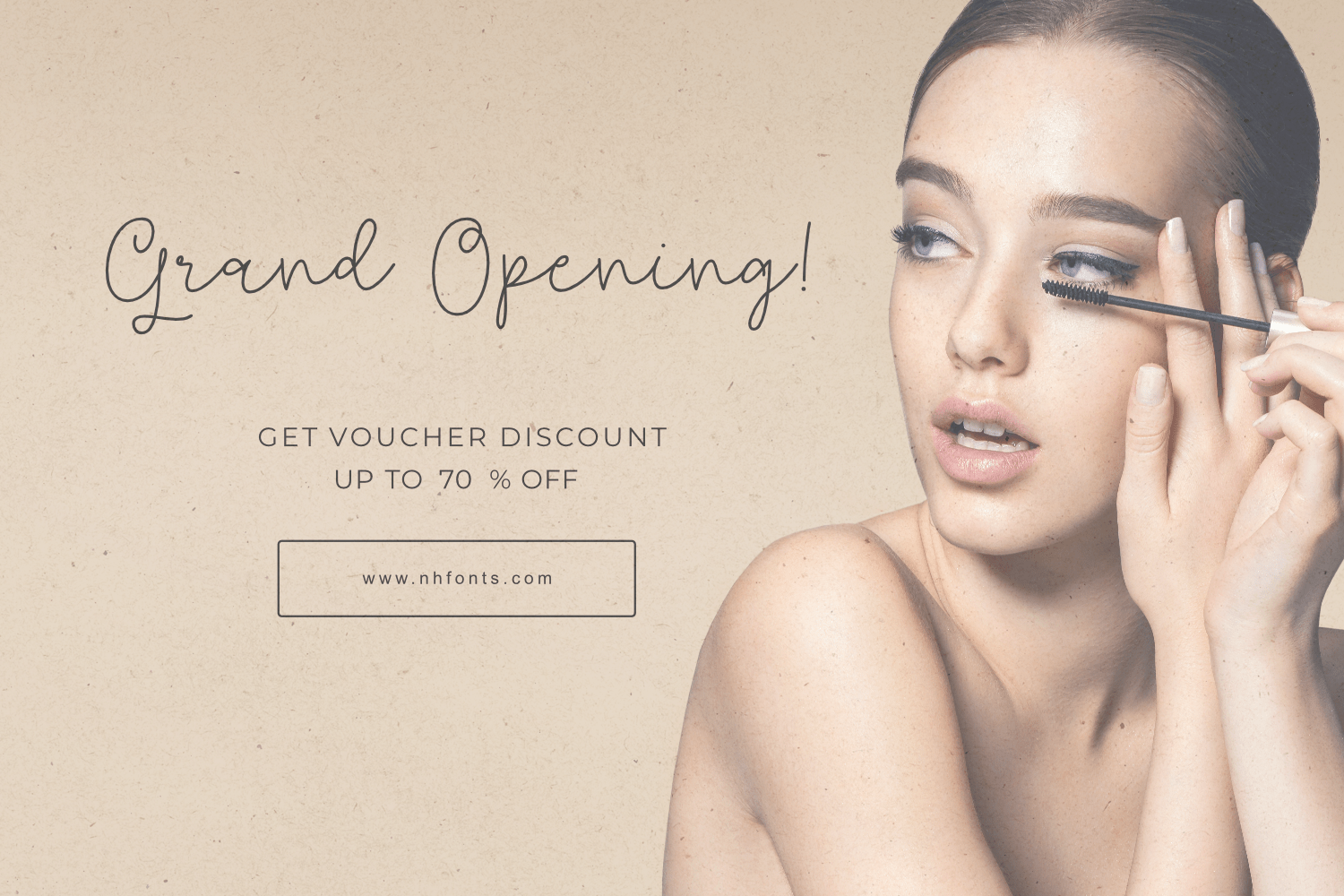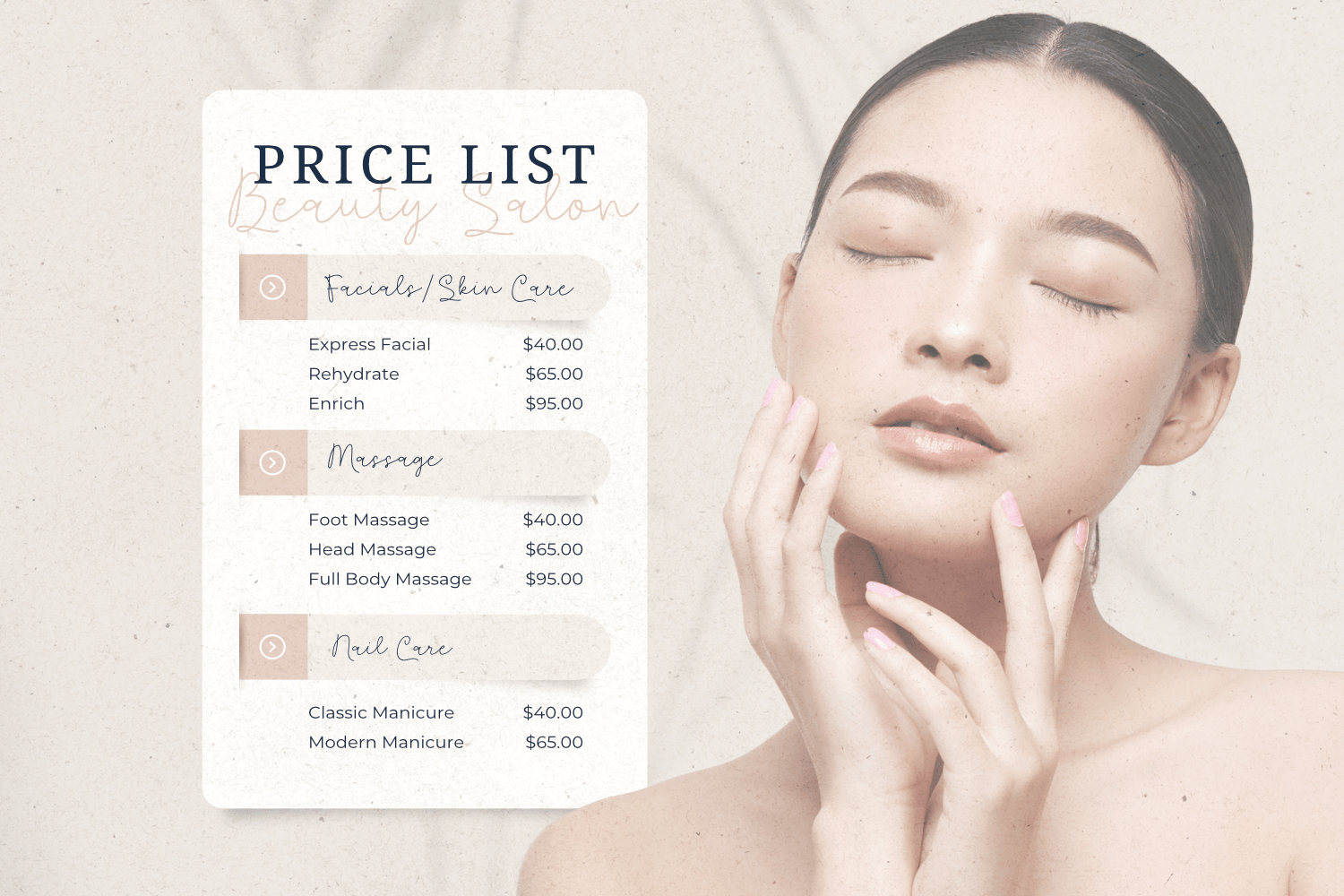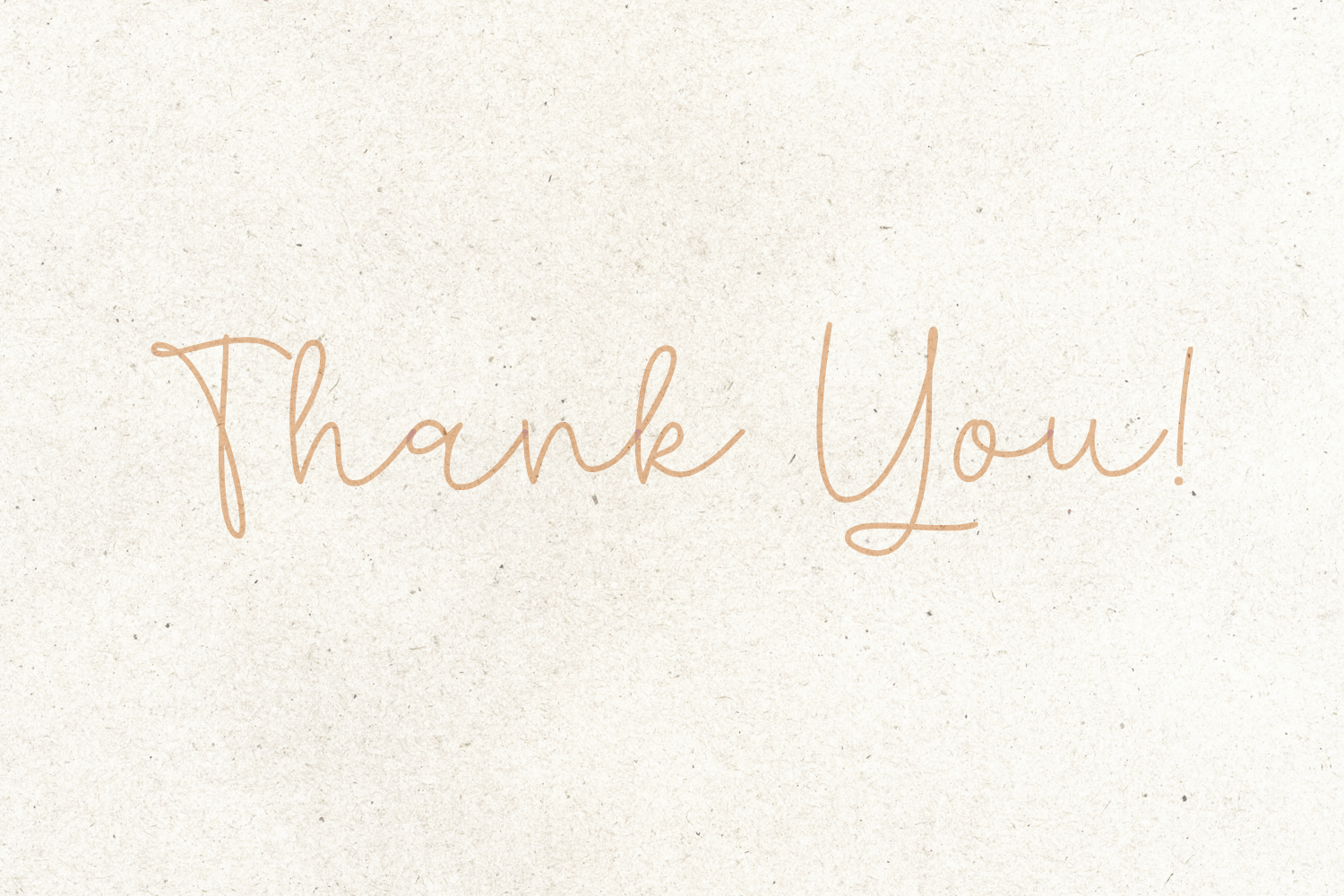
Queasily Font
Queasily Script Font
This is a handwritten signature script with a quick and speedy pacing. Its handwritten look can really freshen up your projects.
It’s perfect for branding projects, logos, wedding designs, social media posts, advertisements, product packaging, product designs, labels, photography, watermarks, invitations, stationery and any other project that needs a handwriting taste.